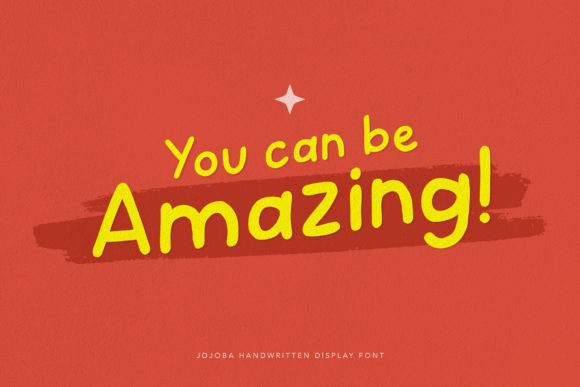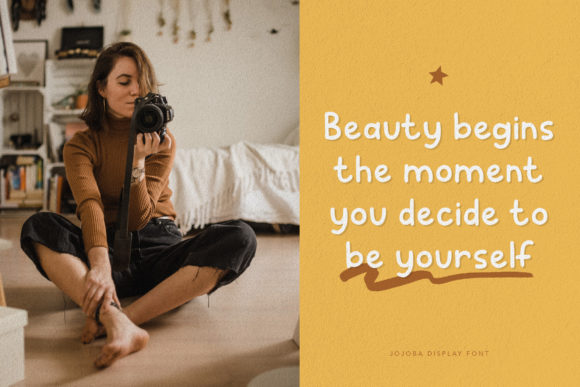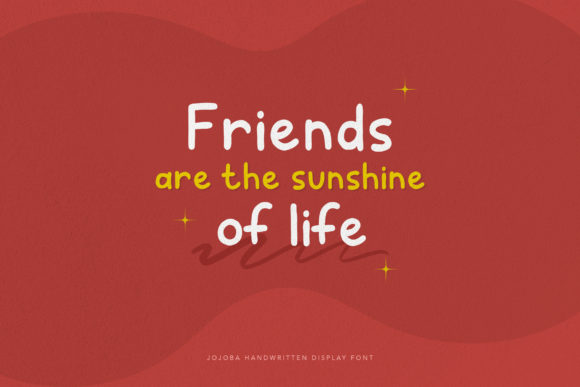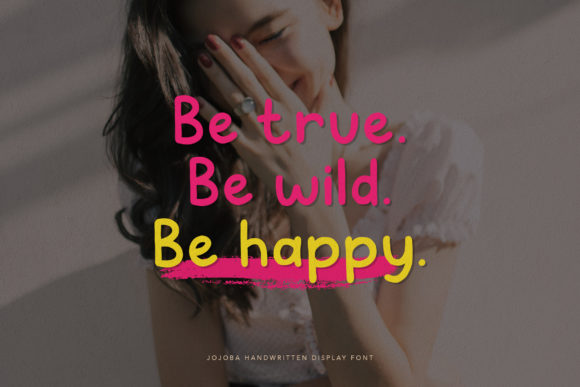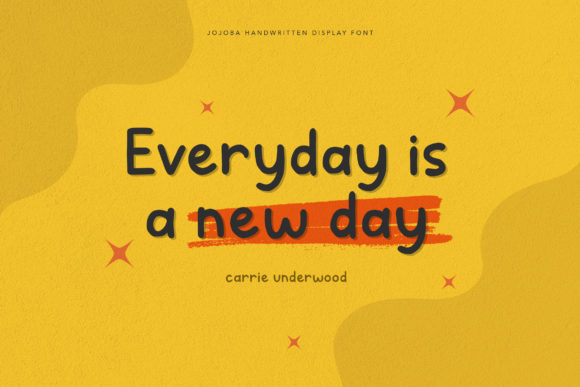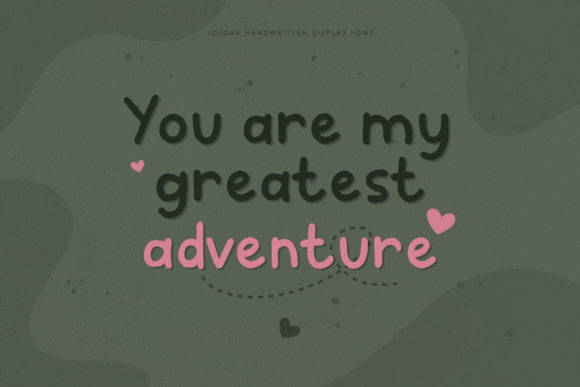
Introduction to Jojoba Font
Have you ever found yourself in the middle of a creative project, desperately searching for the perfect font to bring your vision to life? The frustration of scouring through endless design resources can be overwhelming, but what if you stumbled upon a font that not only sparks joy but also elevates your design game?
Enter the Jojoba Font, a charming and bold handwritten font that’s sure to capture your heart. With its high-quality design and transparent background, this font is a treasure trove for designers looking to add a touch of whimsy to their creative projects. Whether you’re working on a fun and playful design or a minimalist masterpiece, Jojoba Font is the perfect companion to bring your ideas to life.
Key Features of Jojoba Font
- High-quality design resource suitable for creative projects, including logos, branding, and digital artwork.
- Features a transparent background, allowing for easy customization and integration with different design elements.
- Unique characteristics include its modern and elegant design, making it suitable for a wide range of creative projects.
Honest Review: Jojoba Font
I recently had the chance to work with the Jojoba Font, a design resource that caught my eye due to its high quality and unique aesthetic. The font itself is perfect for any creative project that requires a touch of sophistication and elegance.
- ✨ Unique and stylish design that sets it apart from other fonts
- ✨ Highly legible and clear, even at small font sizes
- ✨ Transparent background makes it easy to layer over other design elements
- ⚠️ Limited character set, which may not be suitable for lengthy text
- ⚠️ Some users may find the font too ornate or distracting for certain designs
Overall, I was impressed with the Jojoba Font’s potential for adding a touch of creativity to my designs. While it may not be the best choice for every project, it’s definitely worth considering for those looking to add some visual interest to their work.
The Jojoba Font is a versatile design resource that can be used in a variety of creative projects, including:
– Branding and logos
– Marketing materials
– Digital publications
Tips for Getting the Most Out of the Jojoba Font
To get the most out of the Jojoba Font, try experimenting with different font sizes, colors, and combinations with other design elements. The transparent background of the Jojoba Font makes it easy to layer and customize your design.
Alternatives to Jojoba Font
Open Sans is a high-quality, modern sans-serif font that is perfect for creative projects and digital designs. It’s free to download and offers a transparent background, making it ideal for website headers and titles. When to use: Open Sans is great for clean and minimalist designs, and it’s a popular choice for digital magazines and news websites. It compares to Jojoba Font by offering a similar modern feel, but with a more extensive character set and better support for languages.
Lato is a beautiful, elegant sans-serif font that is suitable for creative projects and design resources. It’s a free download and offers a transparent background, making it perfect for branding and identity projects. When to use: Lato is ideal for luxury and high-end designs, and it’s a great choice for creative agencies and design studios. It compares to Jojoba Font by offering a similar elegant feel, but with a more extensive character set and better support for languages.
Q: Does the Jojoba Font have a transparent background?
Yes, the Jojoba Font has a transparent background, making it ideal for use on images or designs with complex backgrounds. This feature allows you to easily layer the font over other design elements without any visual interference. Simply use the font’s transparent background in your design software to achieve a seamless look.